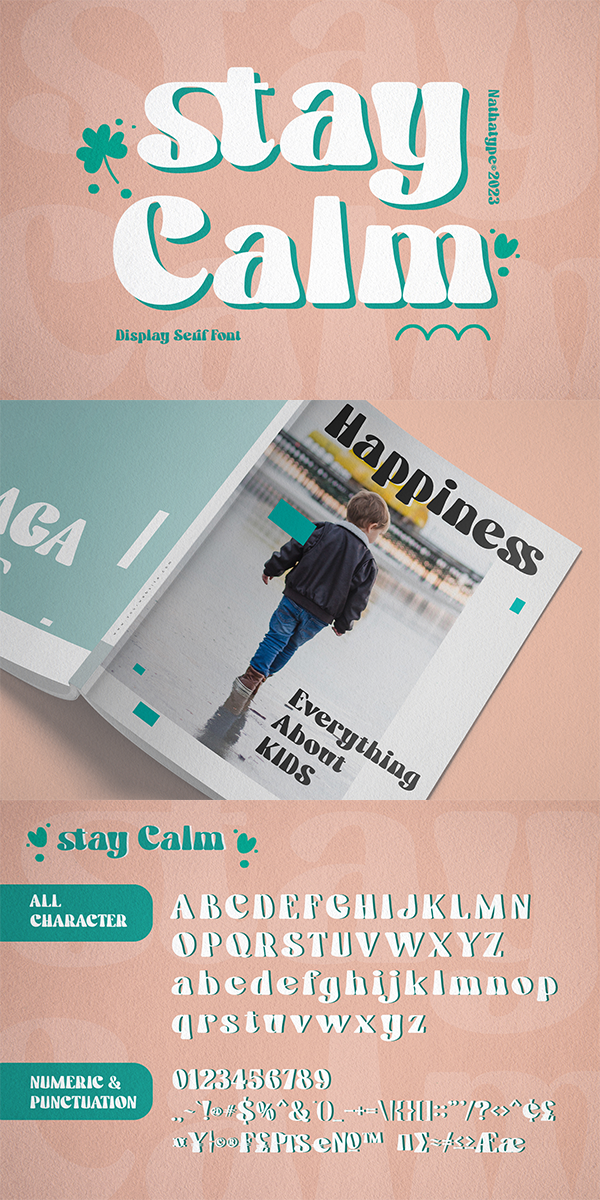
Stay Calm Font
About Stay Calm
Stay Calm is an elegant, prominent display serif font to attract everybody’s attention. It has bigger and thicker font proportions than the other ordinary serif fonts as its character to ease people to see it in big text sizes. Such unique characters as curvy thin lines and big, protruding dots, make this font suitable to create unique, interesting designs and applicable for bigger text sizes. You may also enjoy the available features here.
Stay Calm fits best for various design projects, such as brandings, posters, banners, headings, magazine covers, quotes, invitations, greeting cards, printed products, merchandise, social media, etc. Find out more ways to use this font by taking a look at the font preview.